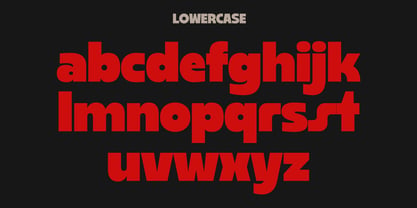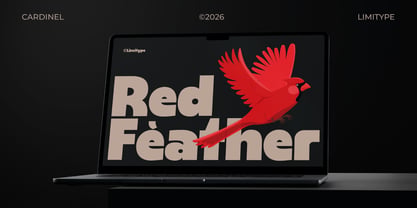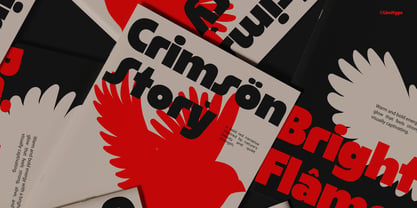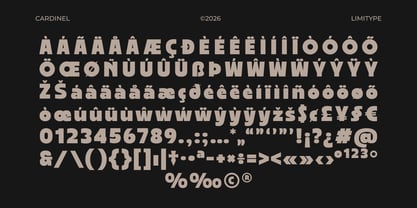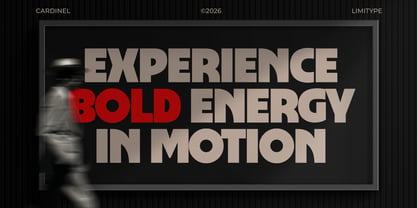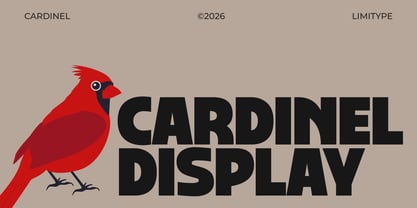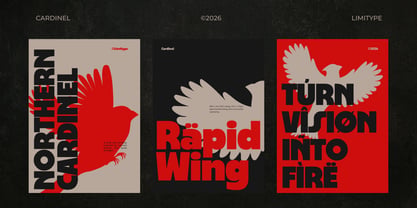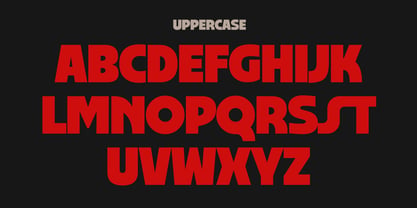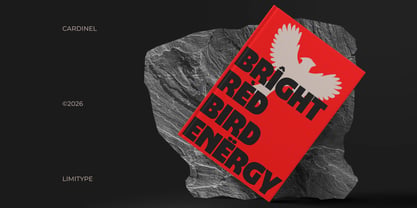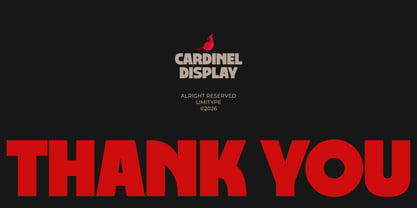
Cardinel Display
Cardinel Display is a bold, modern typeface built on a strong geometric structure and a dynamic visual rhythm, giving it a clean and contemporary feel. Its crisp yet energetic forms work especially well for branding, logos, headlines, posters, and editorial layouts that need to stand out. Cardinel Display is a great choice for modern design projects that aim to communicate with clarity, confidence, and a distinctive visual presence across both digital and print media.
Cardinel Display available with:
• Uppercase
• Lowercase
• Number
• Symbol
• Multilingual